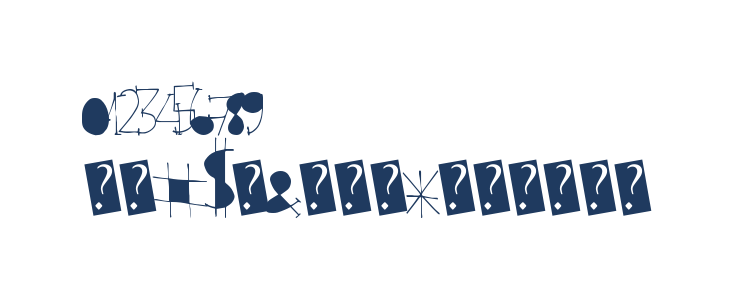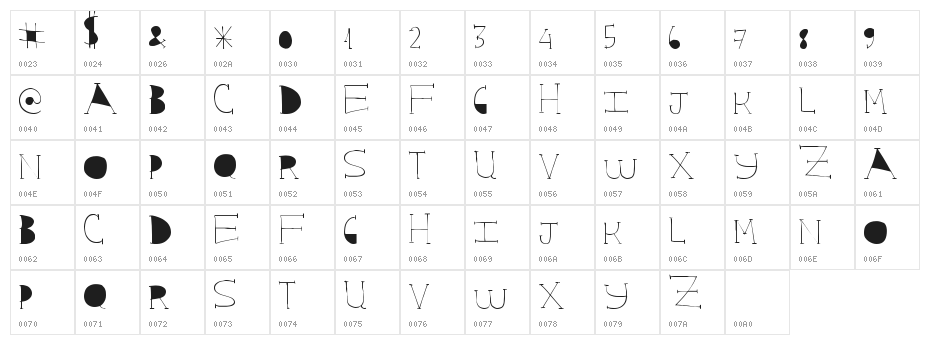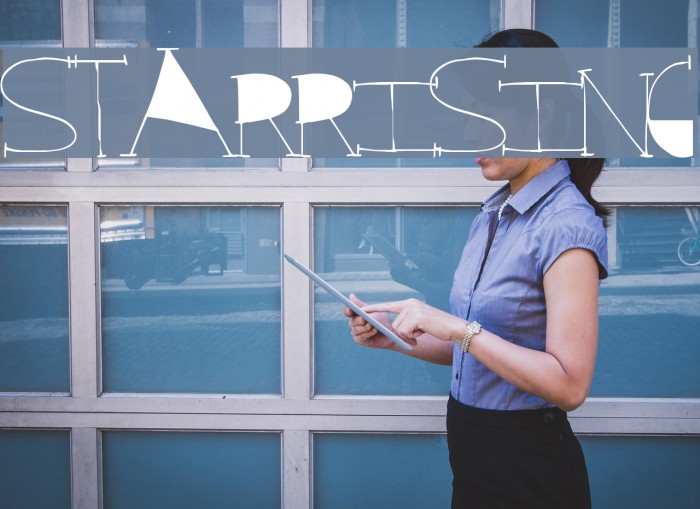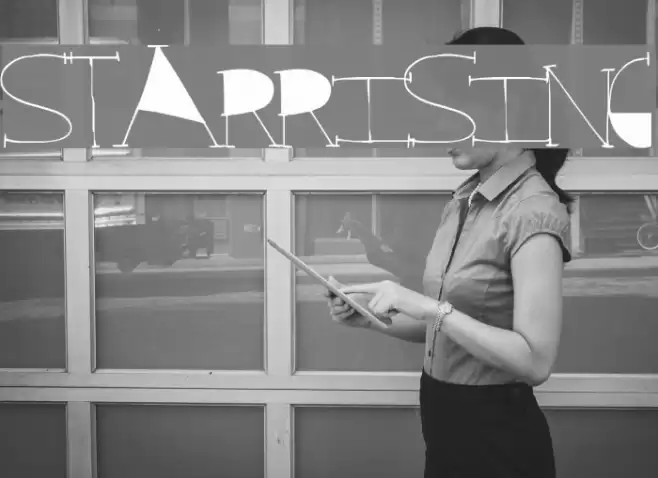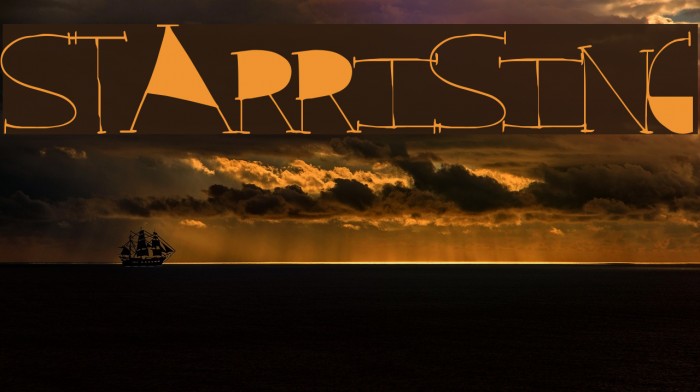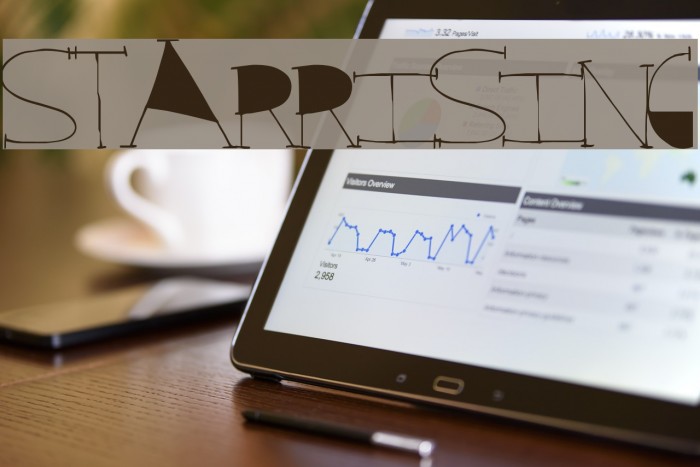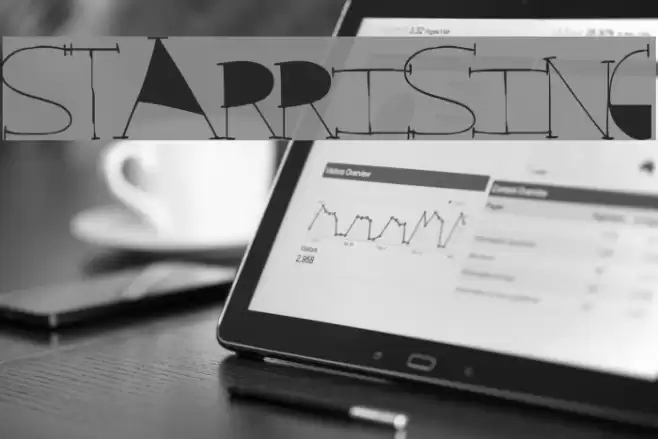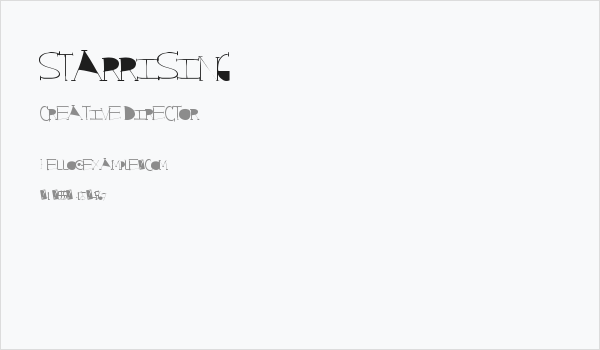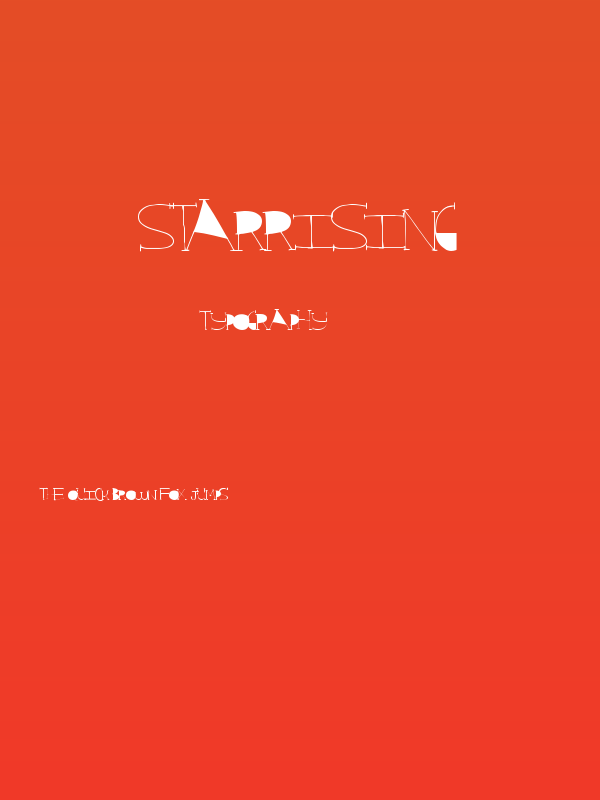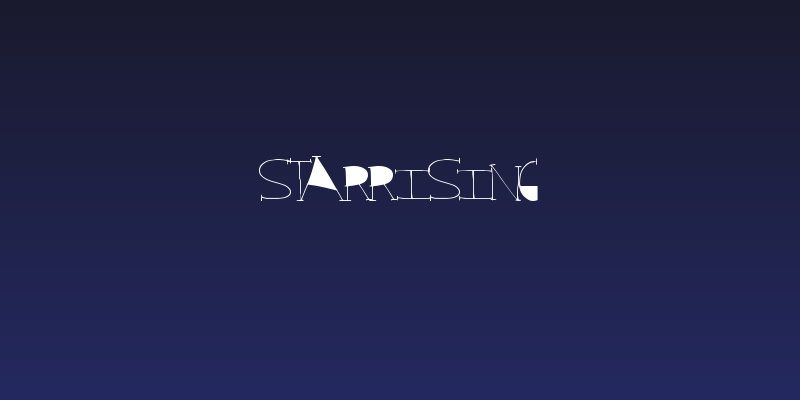
StarRising Font
StarRising Description
This font features a unique and artistic design with a combination of geometric shapes and thin lines. The uppercase letters are characterized by bold, half-filled shapes that create a striking contrast with the delicate, thin strokes connecting them. The lowercase letters maintain a similar style, offering a cohesive look throughout the alphabet. Numbers and special characters follow the same design principles, ensuring consistency. The overall appearance is modern and abstract, making it suitable for creative and unconventional projects.
| Proposed Projects | Ideal for artistic posters, album covers, and creative branding projects. |